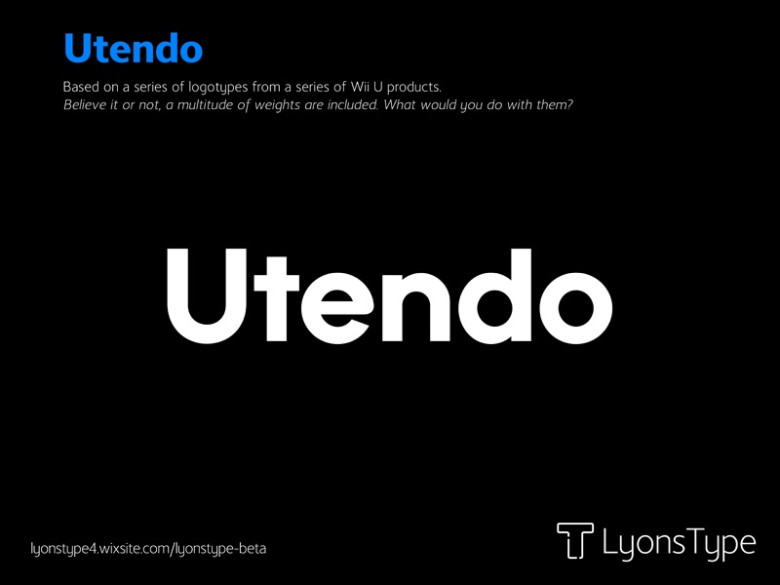
Utendo Font
Utendo Font is a sans-serif font family and various styles of this font make it a top choice for different niches of graphic design and clear productions, which need text. This can be easily applied in graphic design solutions; the style of this sans-serif font family and variety of its interpretations can be used to adjust the type of the text to the project.
Utendo Sans Serif Font Family